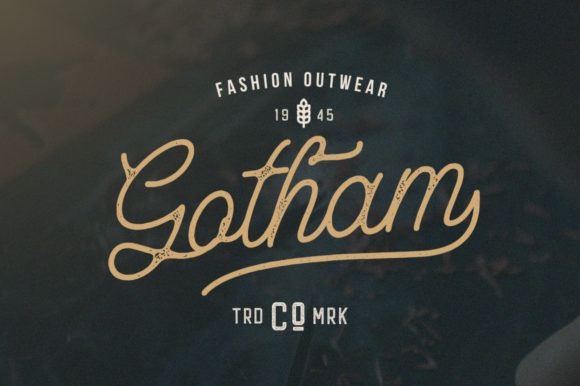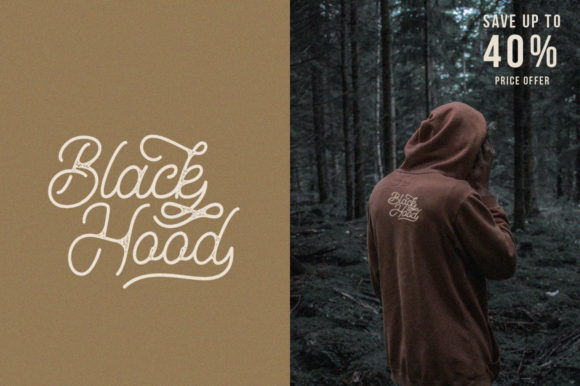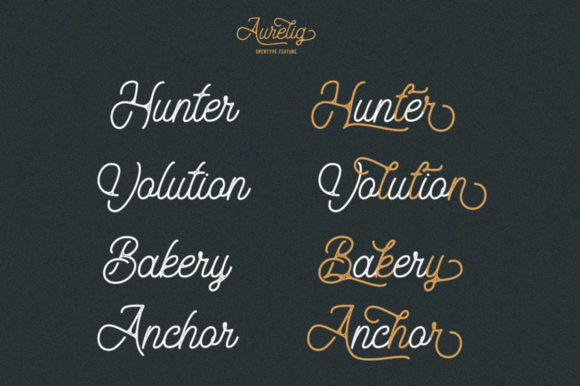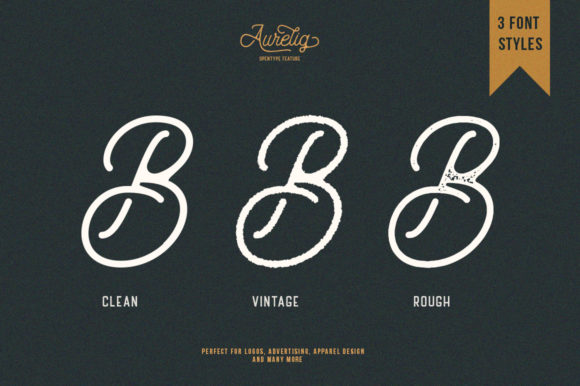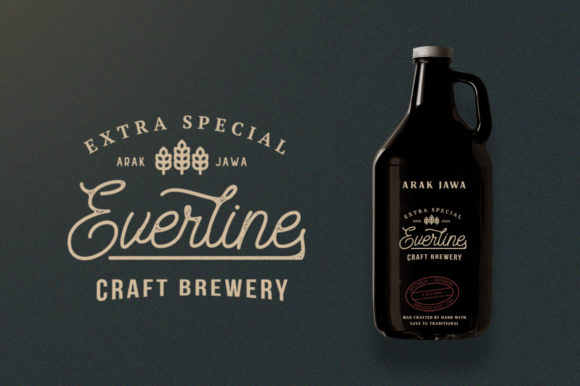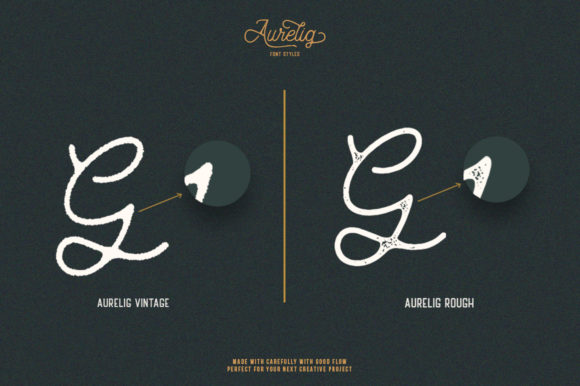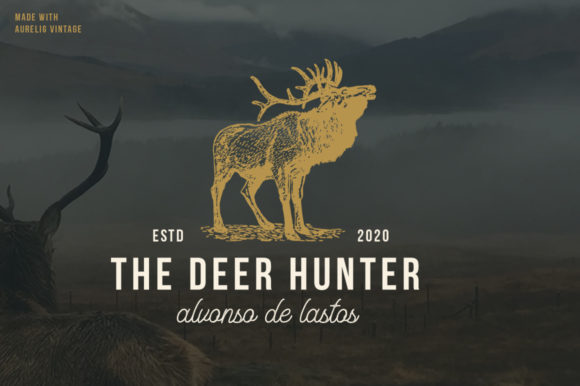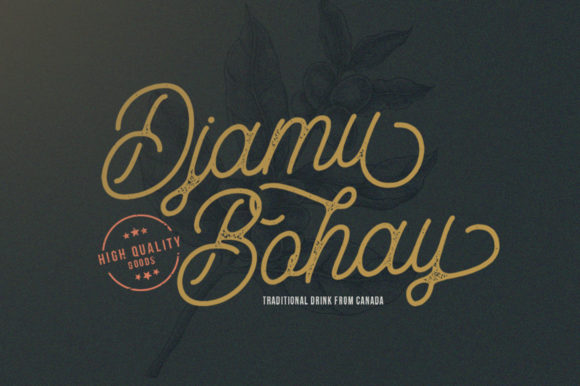
Aurelig Vintage Font
About Aurelig Vintage Font
Aurelig Vintage is script with a mono line style inspired from the modern, vintage and retro styles.
Fall in love with its authentic feel and use it to create beautiful stationary art, eye-catching social media posts, and cute greeting cards.